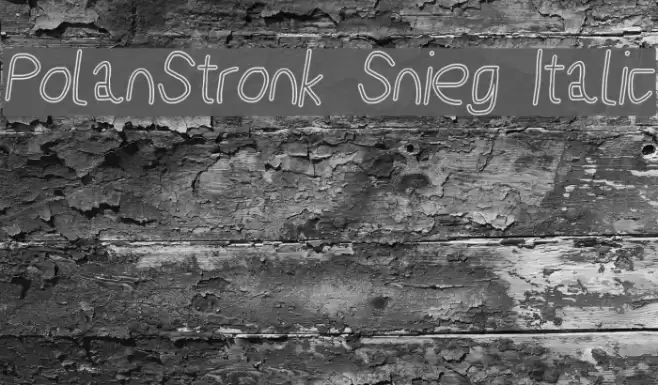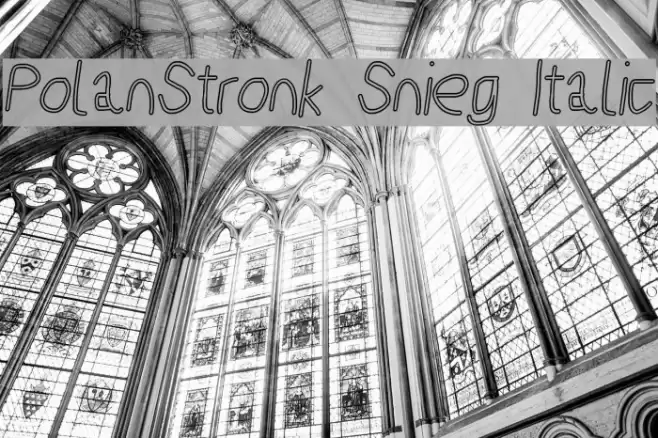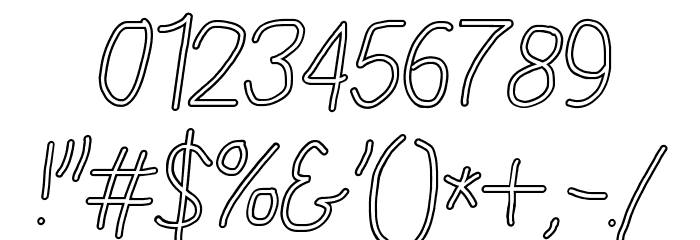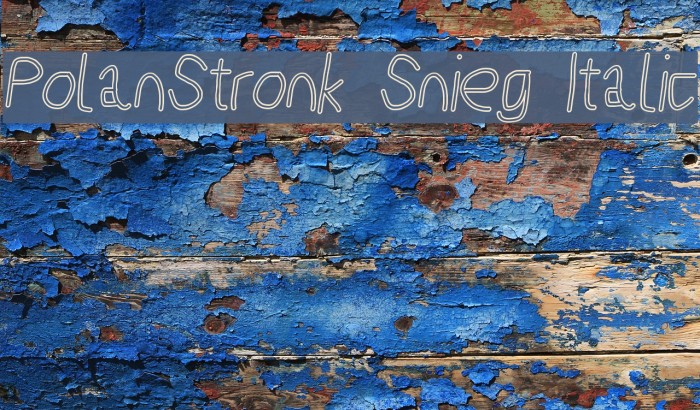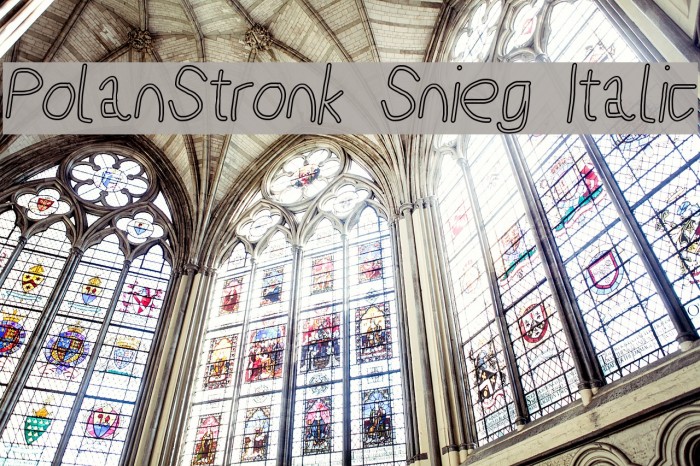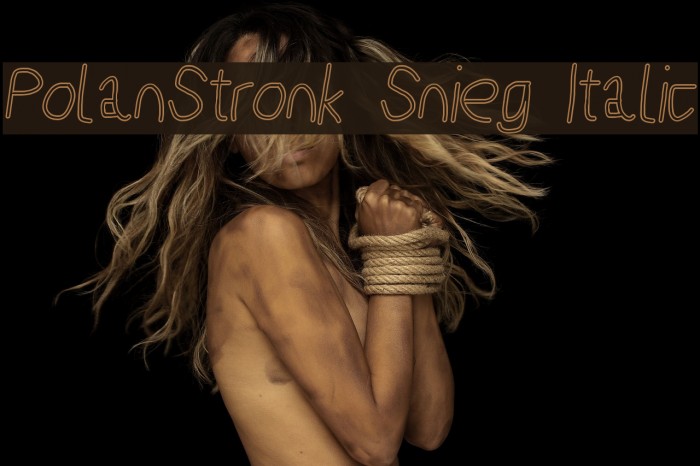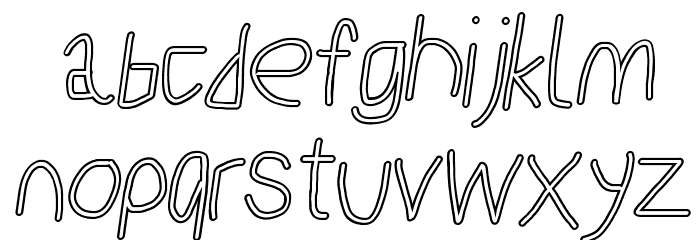
PolanStronk Snieg Italic Font
PolanStronk Snieg Italic Description
This font features a playful and dynamic style with a hand-drawn appearance. The characters are outlined, giving them a hollow look, which adds a unique and artistic flair. The letters are slightly slanted, indicating an italic style, and have a casual, informal feel. The uppercase and lowercase letters maintain a consistent design, with rounded edges and a flowing structure. Numbers and special characters follow the same aesthetic, ensuring a cohesive look across all elements. This font's whimsical nature makes it suitable for creative and fun projects.
A playful, hand-drawn, outlined italic font with a whimsical style from Uncategorized fonts.